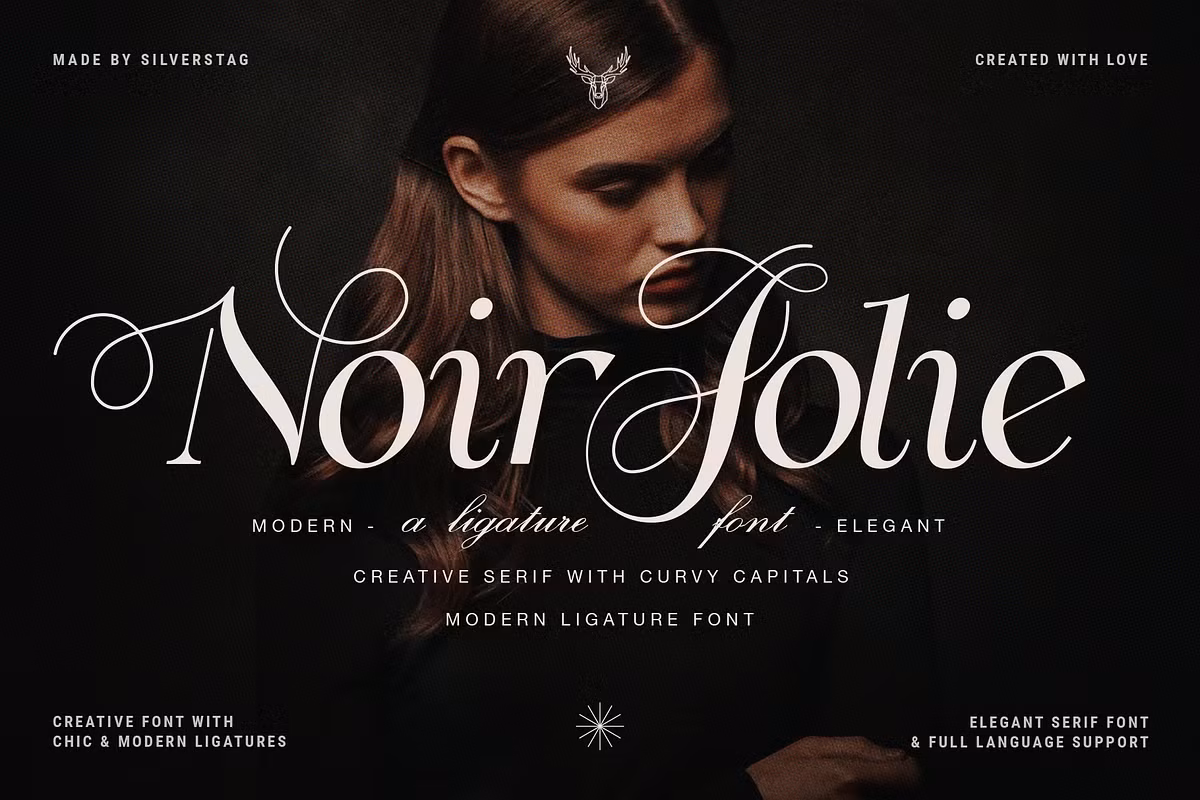
Noir Jolie - Modern Ligature Serif Font Free Download is an elegant and sophisticated serif typeface with a modern twist. Featuring clean lines, high contrast, and stylish ligatures, this font is perfect for high-end branding, editorial layouts, logos, invitations, and more.
The Noir Jolie font combines classic serif design with contemporary ligatures, giving it a refined yet modern feel. Its luxurious and polished look makes it ideal for upscale projects, such as fashion branding, luxury marketing, and elegant event materials.
Add elegance and modern sophistication to your designs with Noir Jolie!